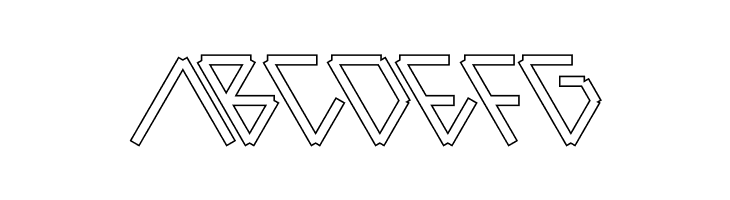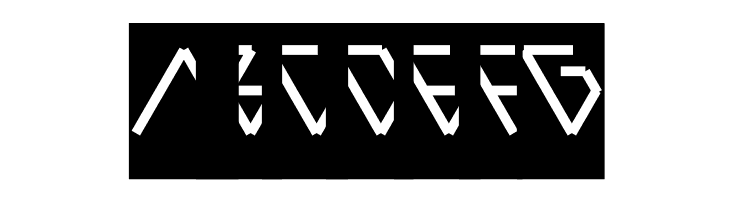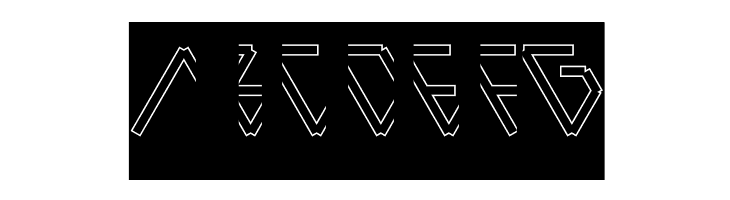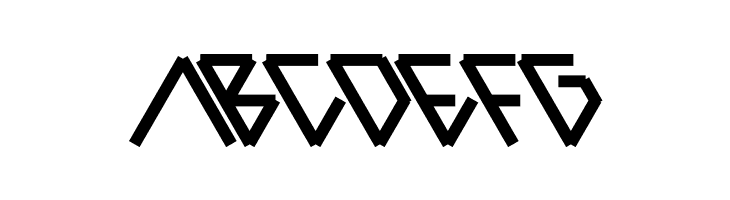
A sophisticated, elegant script font with fluid, cursive handwriting style.
A lively, cursive font with fluid strokes and playful character design.
A bold, energetic script font with a handwritten, cursive style.
A bold, dynamic font with a slightly condensed and energetic style.
A bold, dripping font with a horror-themed aesthetic.
A bold, dripping font with a dramatic and intense appearance.
A bold, playful handwritten font with rounded, consistent strokes.
A bold, playful font with a hand-drawn, casual style.
A playful, handwritten font with dynamic strokes and a casual, artistic flair.
A playful, handwritten font with tall, narrow characters and a distressed look.
A playful, hand-drawn font with tall, narrow characters and a quirky style.
A playful, looping font with bold, rounded terminals and smooth curves.
A playful, decorative font with rounded terminals and consistent stroke width.
A geometric, hollow font with parallel lines and angular shapes.
A futuristic, hollow font with geometric and angular designs.
A geometric, angular font with a futuristic and dynamic design.
A bold, brushstroke-style font with a dynamic and artistic appearance.
A bold, brushstroke font with a textured, hand-painted look.
A playful, hand-drawn font with a whimsical and friendly style.
A playful, bold handwritten font with smooth, rounded edges and a lively appearance.
A playful, bold font with a patchwork, robotic style featuring circular cutouts.
A bold, modern font with smooth, rounded edges and balanced proportions.
A bold, calligraphic font with a brush-like texture and expressive style.